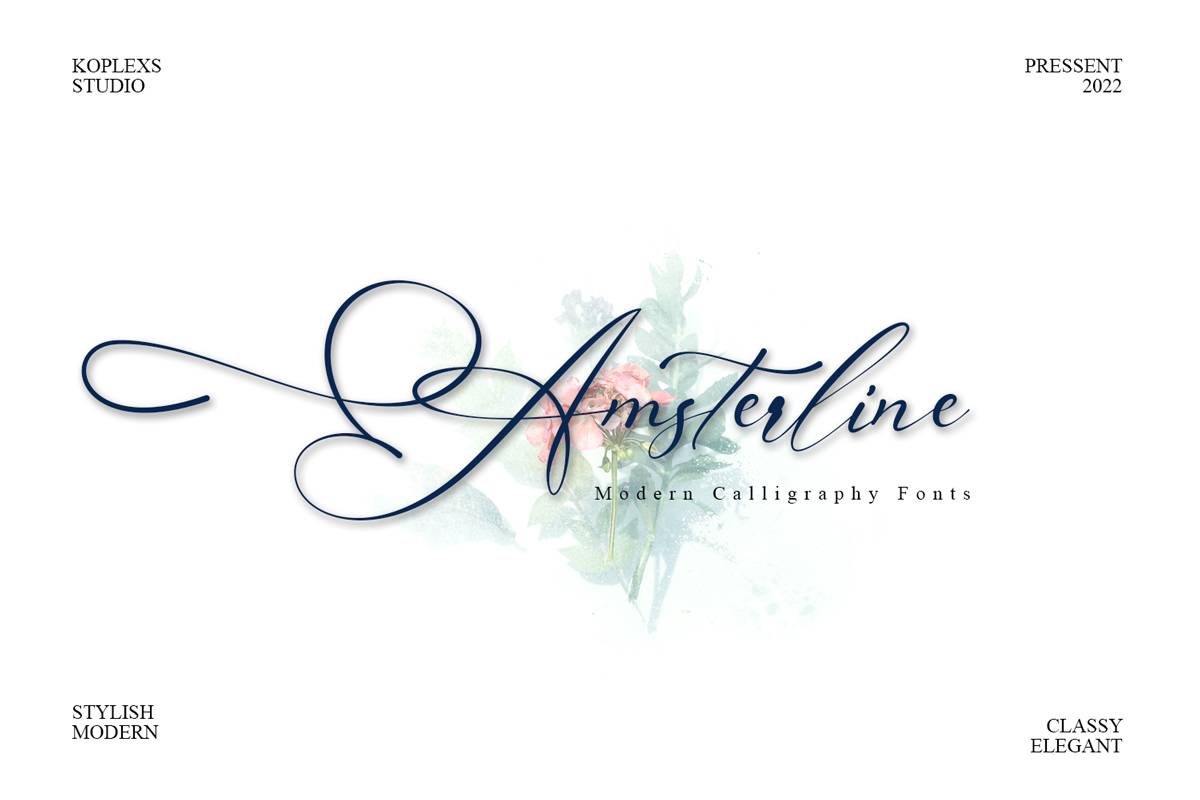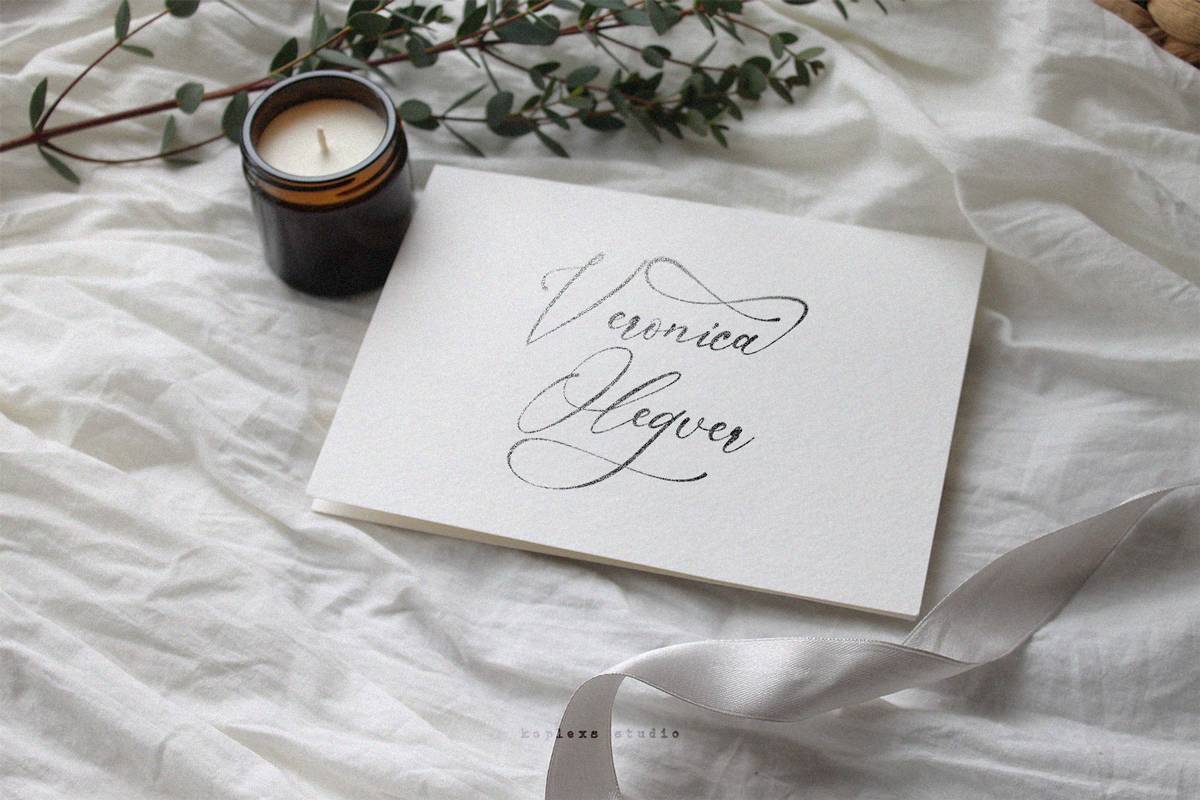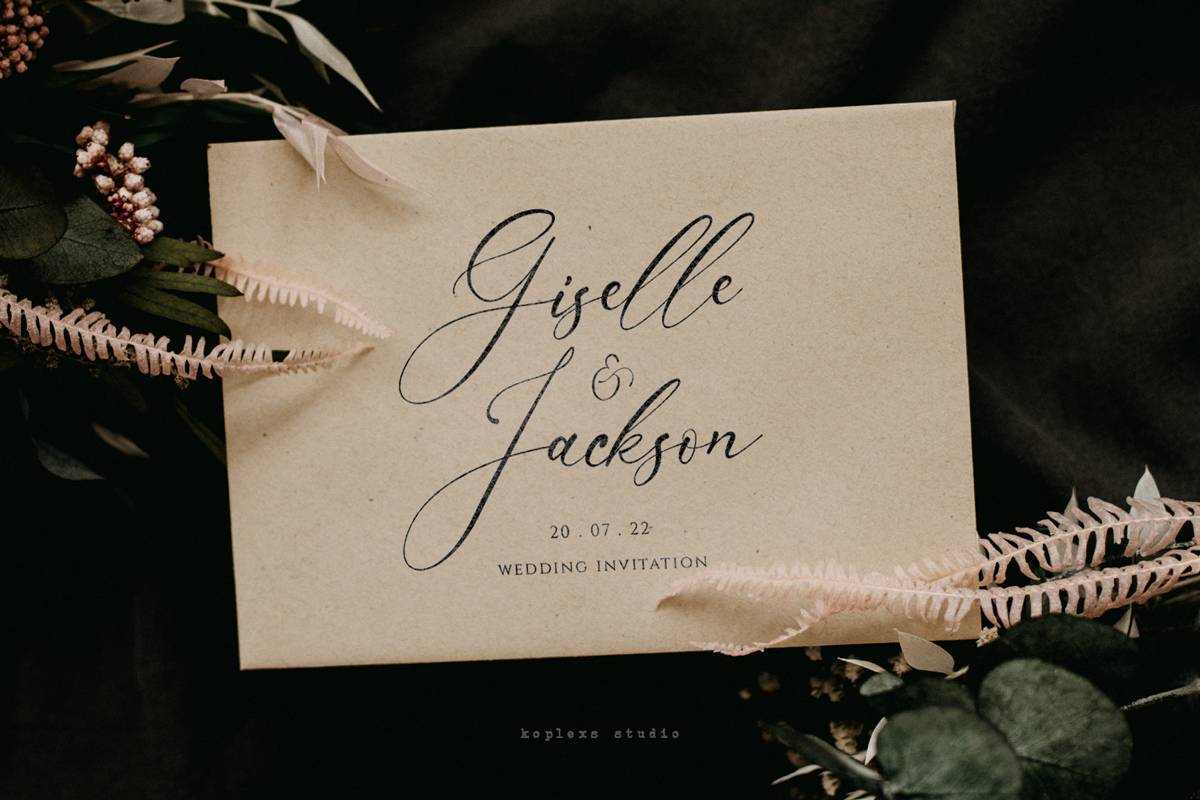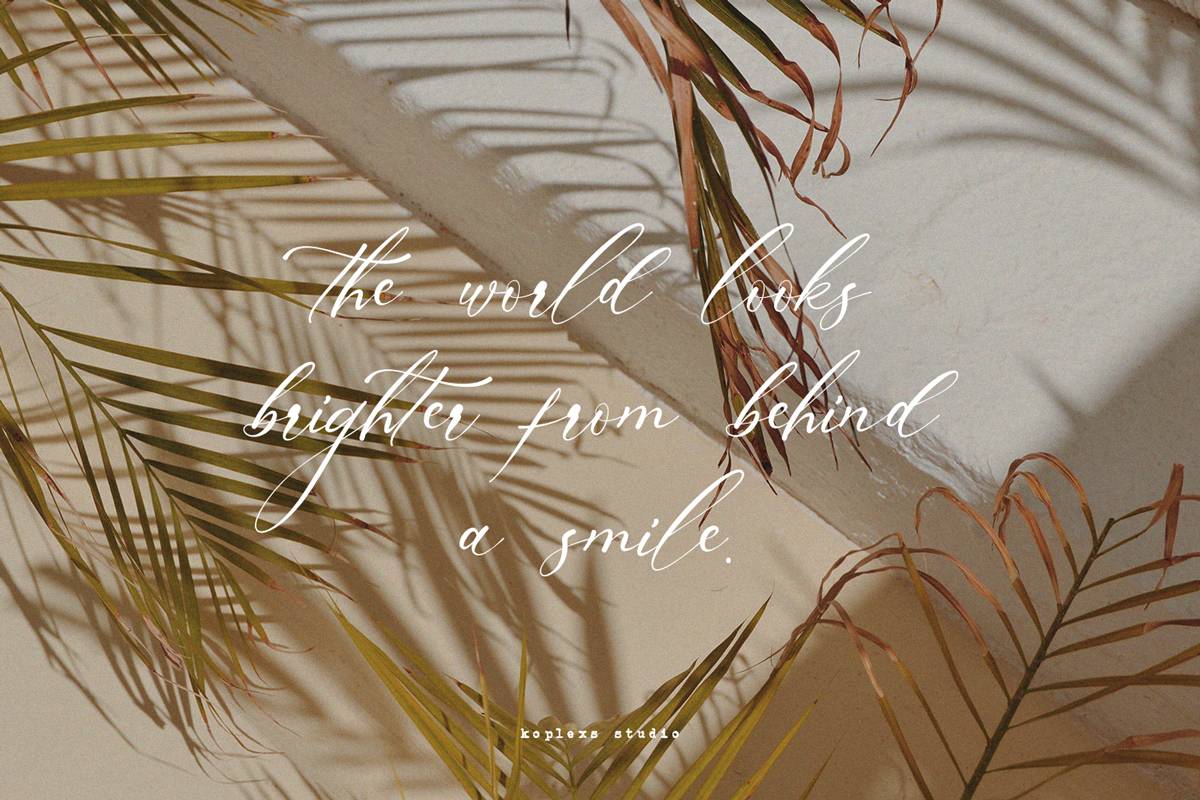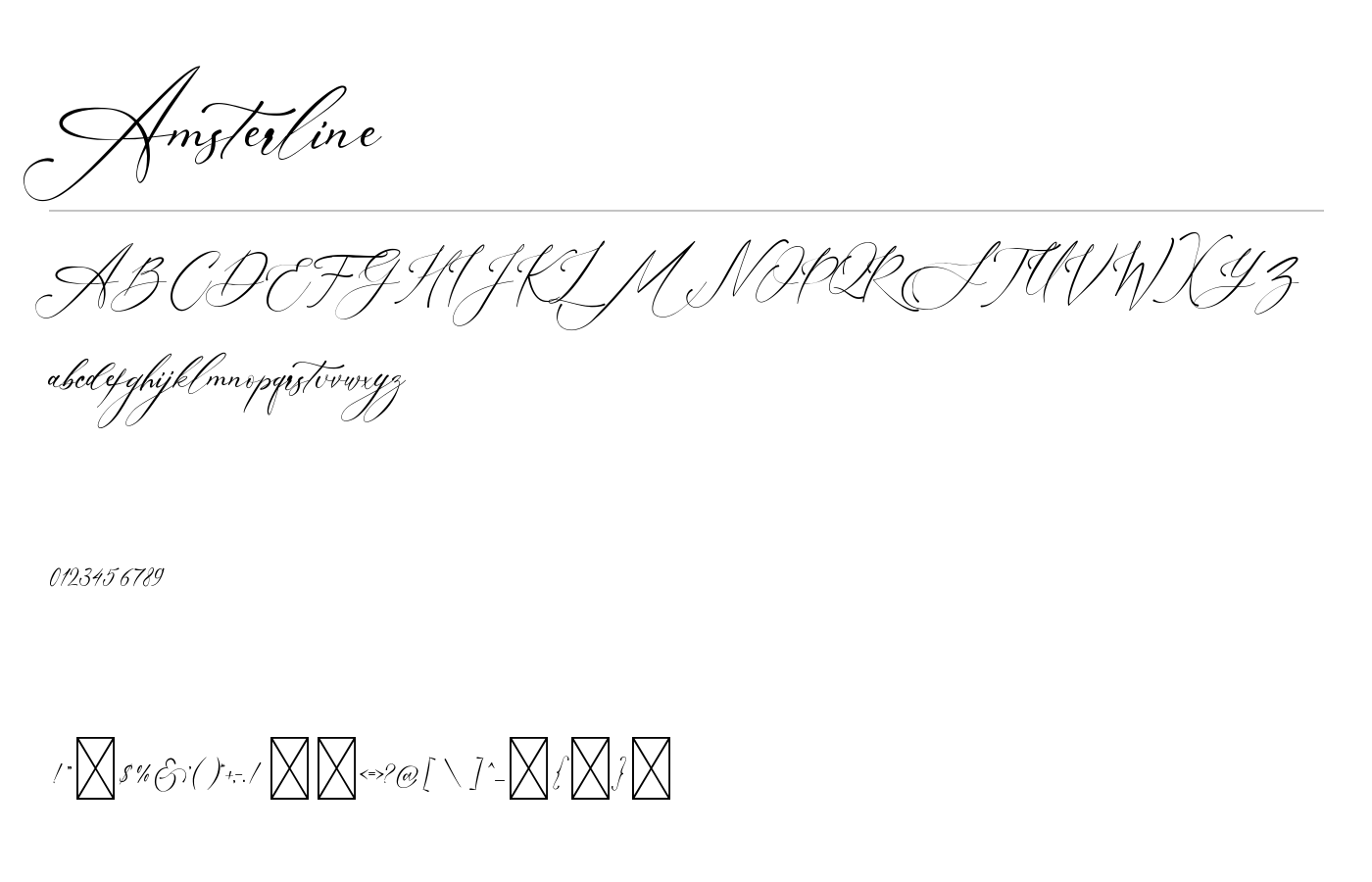
Amsterline is a delicate, elegant script font characterized by its flowing, calligraphic strokes and high contrast between thick and thin lines. With its graceful, fine lines and ornate letterforms, it conveys a sophisticated, luxurious feel perfect for wedding invitations, upscale branding, and elegant editorial projects. This font works best in large sizes where its intricate details can shine, adding a touch of refinement and classic beauty to any design.
Amsterline Font
About Amsterline Font